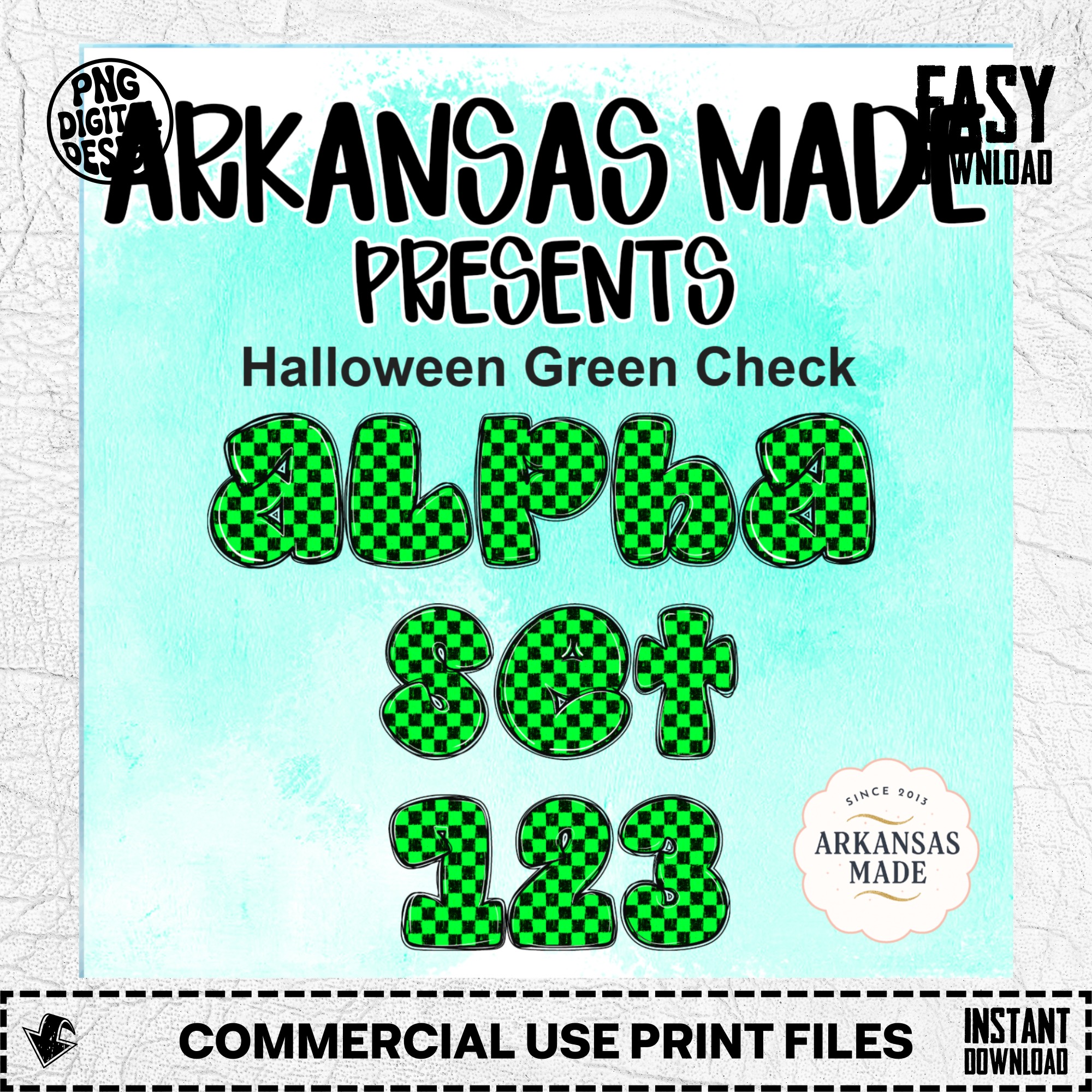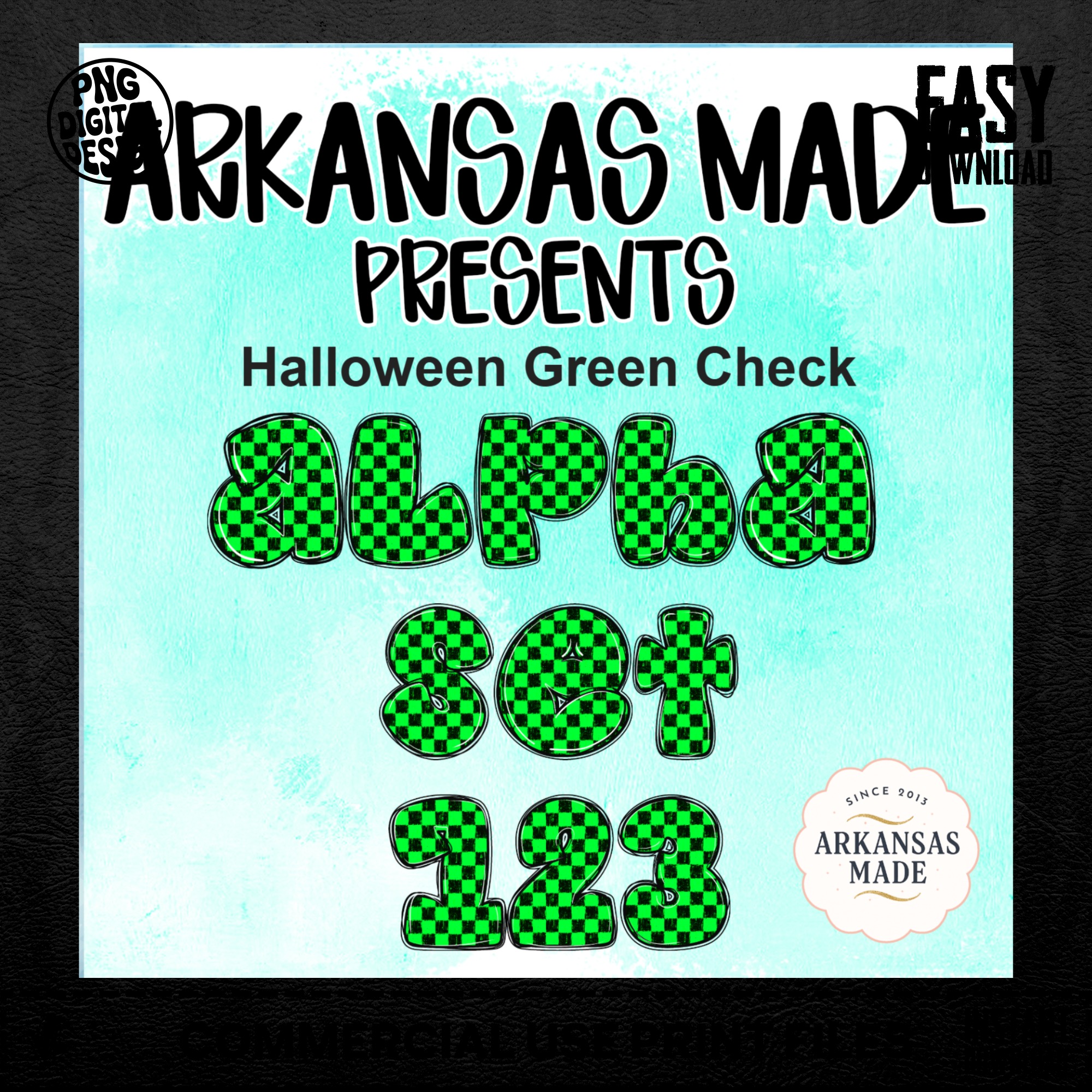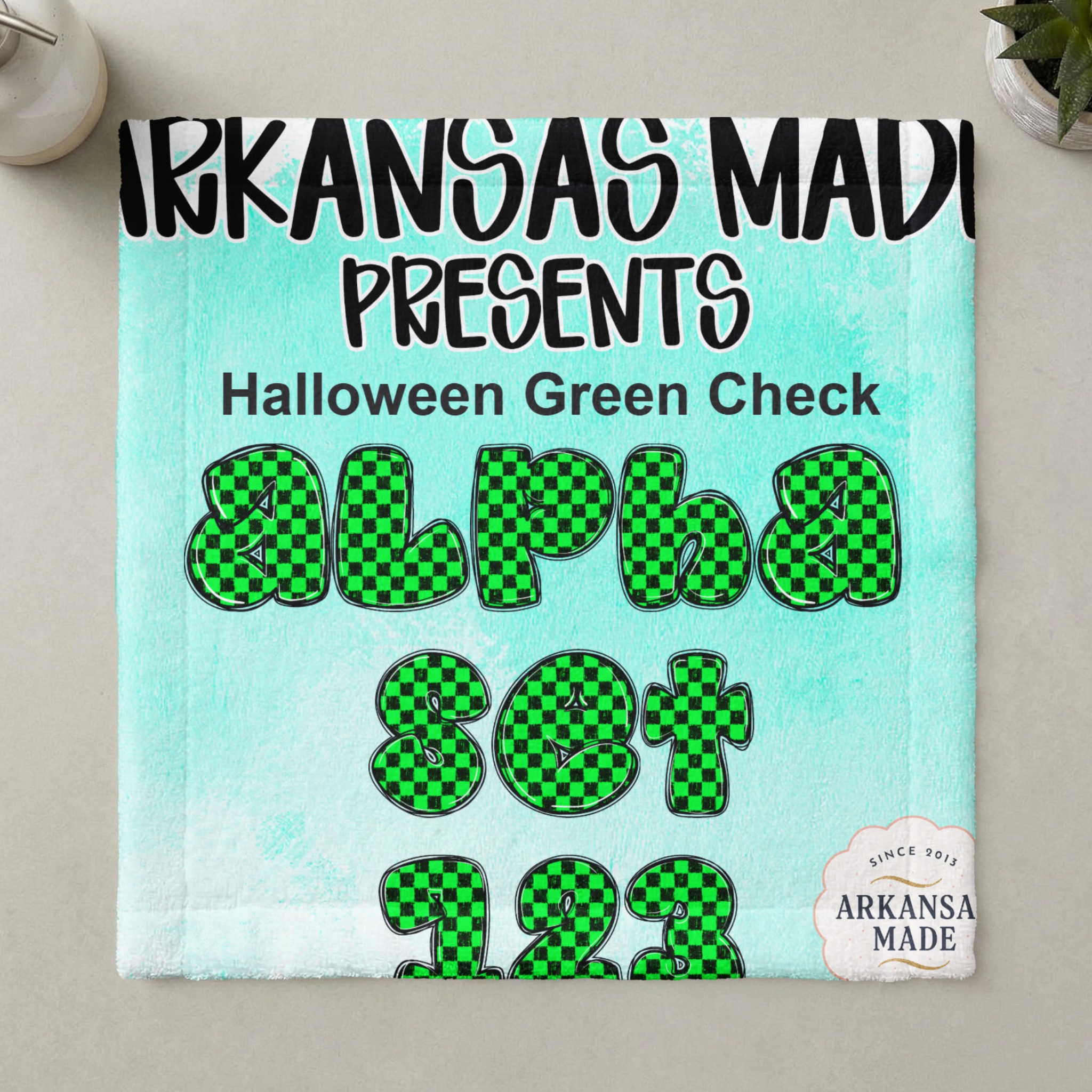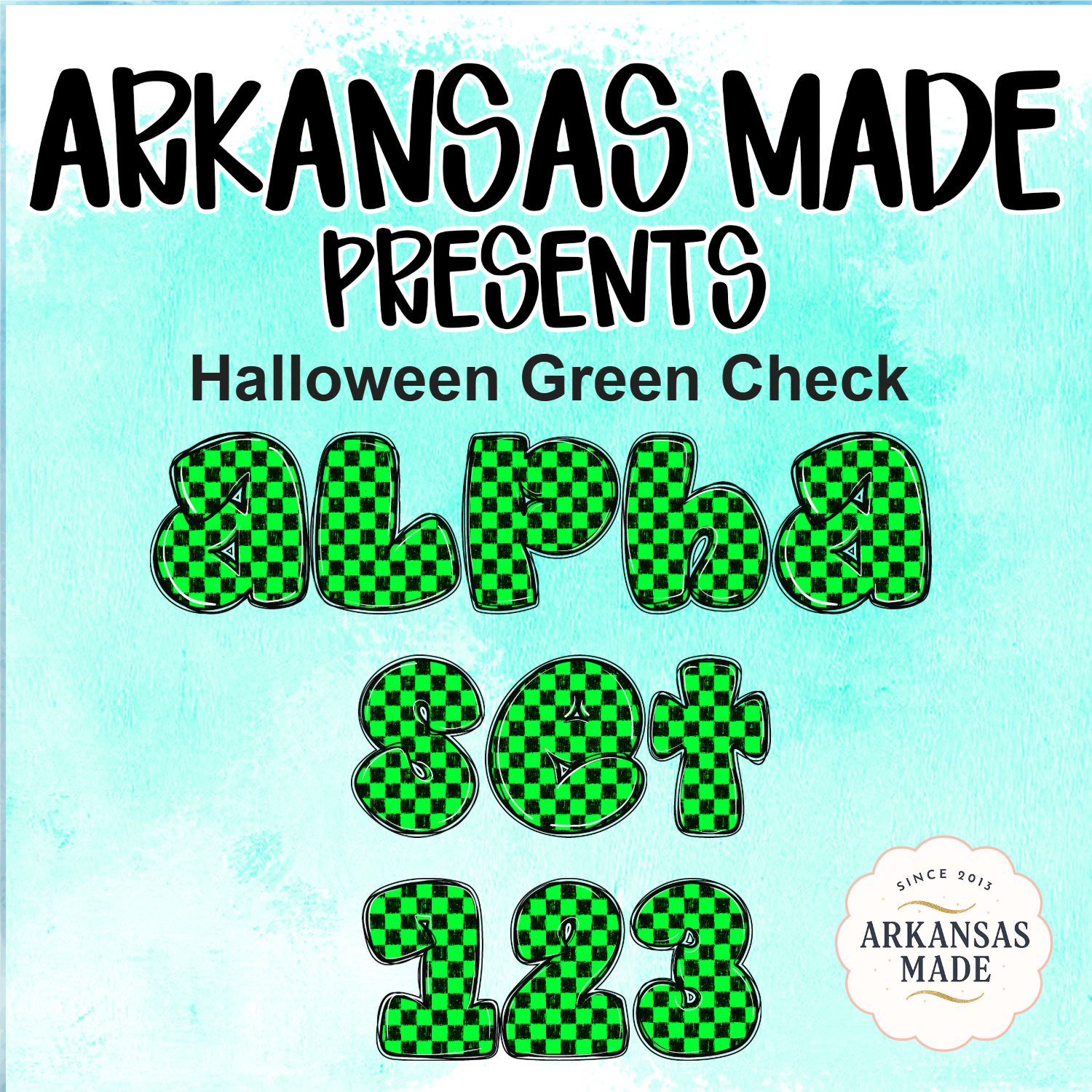
Halloween Green Check Alpha Set 123 PNGs and SVG, Spooky Checkerboard Letters Digital Font Download, Full Alphabet
Unleash spooky creativity with our Halloween Green Check Alpha Set 123, a vibrant digital download perfect for all your frightful crafts! This playful checkerboard alphabet brings a unique, modern Halloween vibe to your personalized items, ideal for crafters, party planners, and DIY enthusiasts. Perfect for designing custom Halloween shirts, party invitations, haunted decorations, or unique gifts for fellow spooky season lovers.